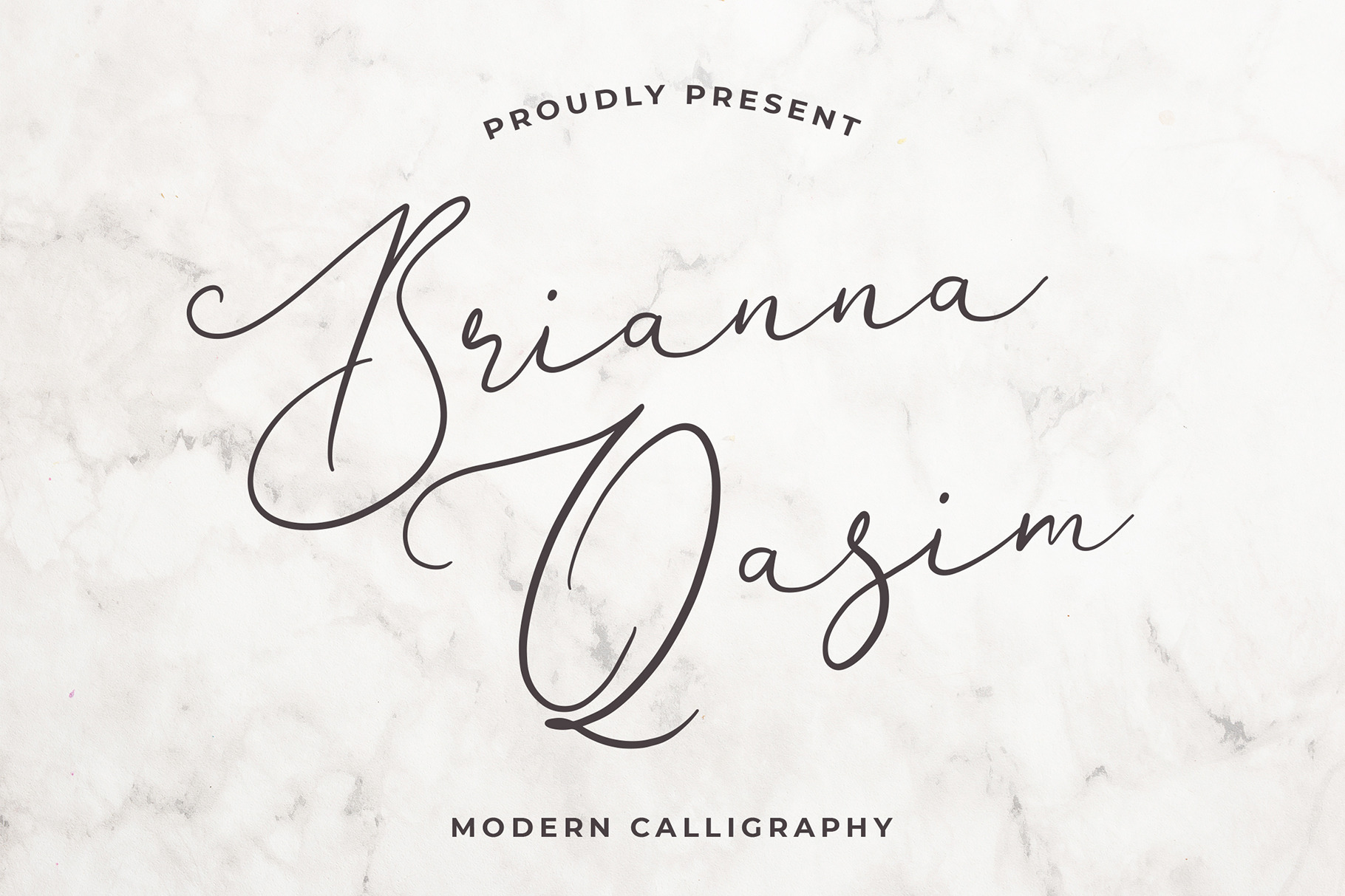
Brianna Qasim Calligraphy Font
Brianna Qasim is a beautiful calligraphy font with a unique style. It’s perfect for adding a graceful feel to any design project.
Brianna Qasim is perfect for branding projects, logo, wedding designs, social media posts, advertisements, product packaging, product designs, label, photography, watermark, invitation, stationery and any projects.